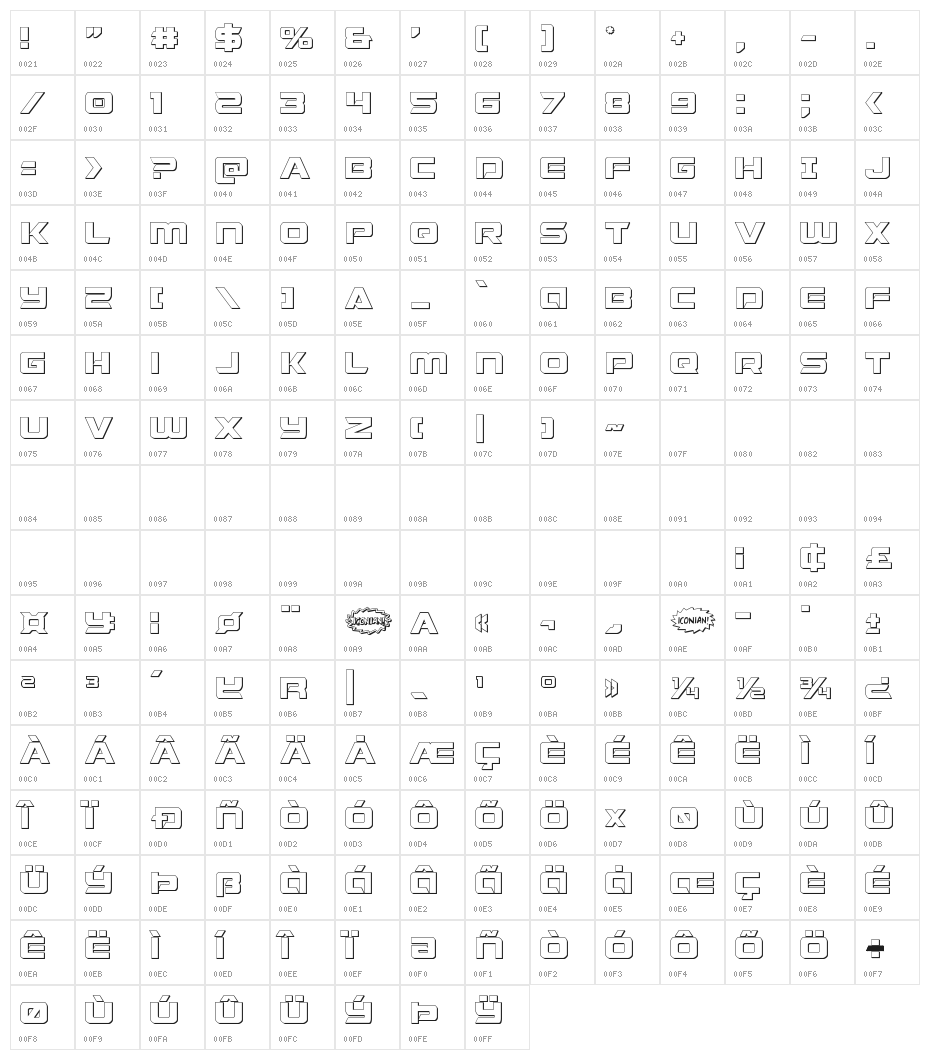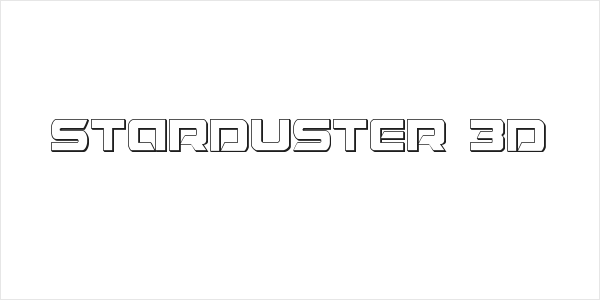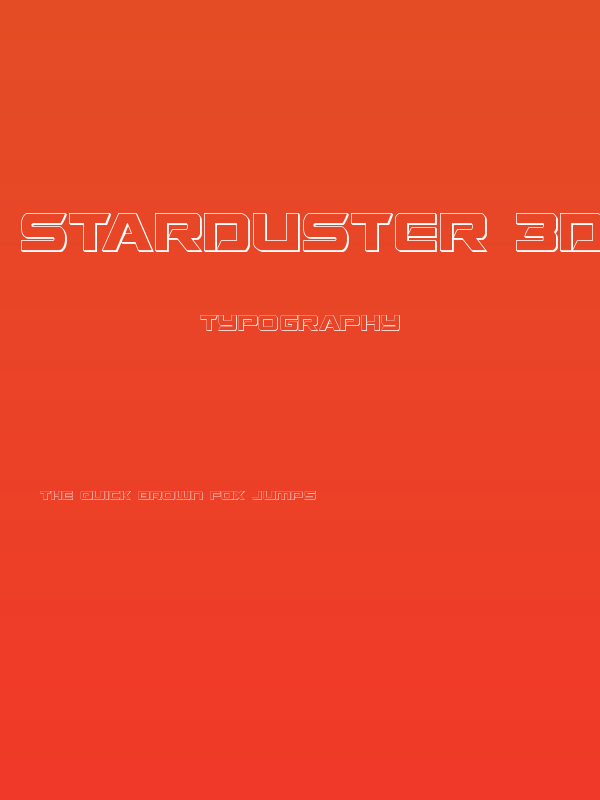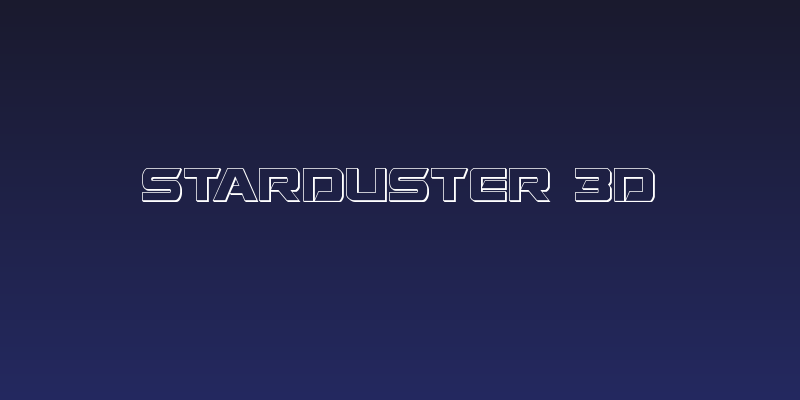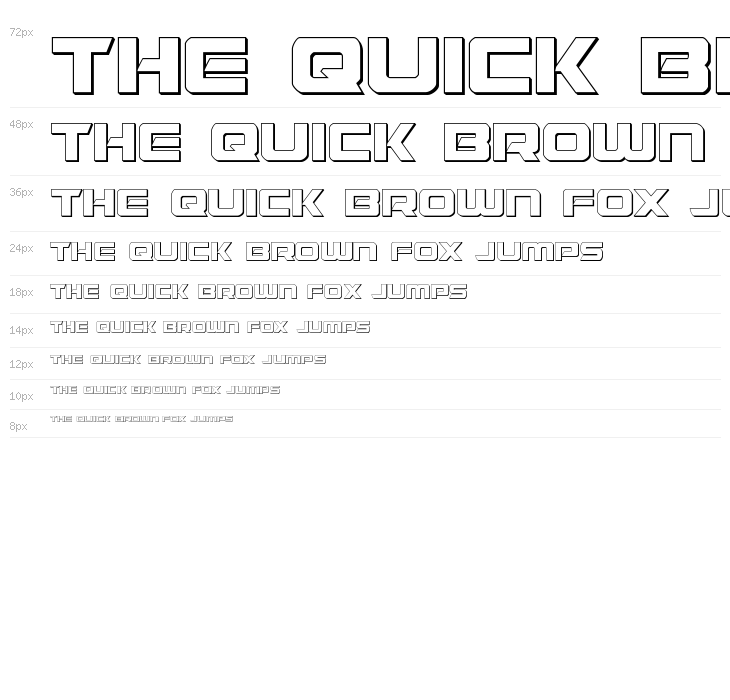
Starduster 3D Font
Starduster 3D Description
This font features a bold, three-dimensional design with a futuristic and geometric aesthetic. Each character is outlined with a distinct shadow effect, giving it a sense of depth and structure. The uppercase and lowercase letters maintain a consistent style, with sharp angles and clean lines that contribute to its modern look. The numbers and special characters are equally stylized, ensuring uniformity across the entire set. Its unique design makes it stand out, ideal for projects that require a strong visual impact.
| Proposed Projects | Ideal for sci-fi themed posters, video game titles, and modern branding projects. |